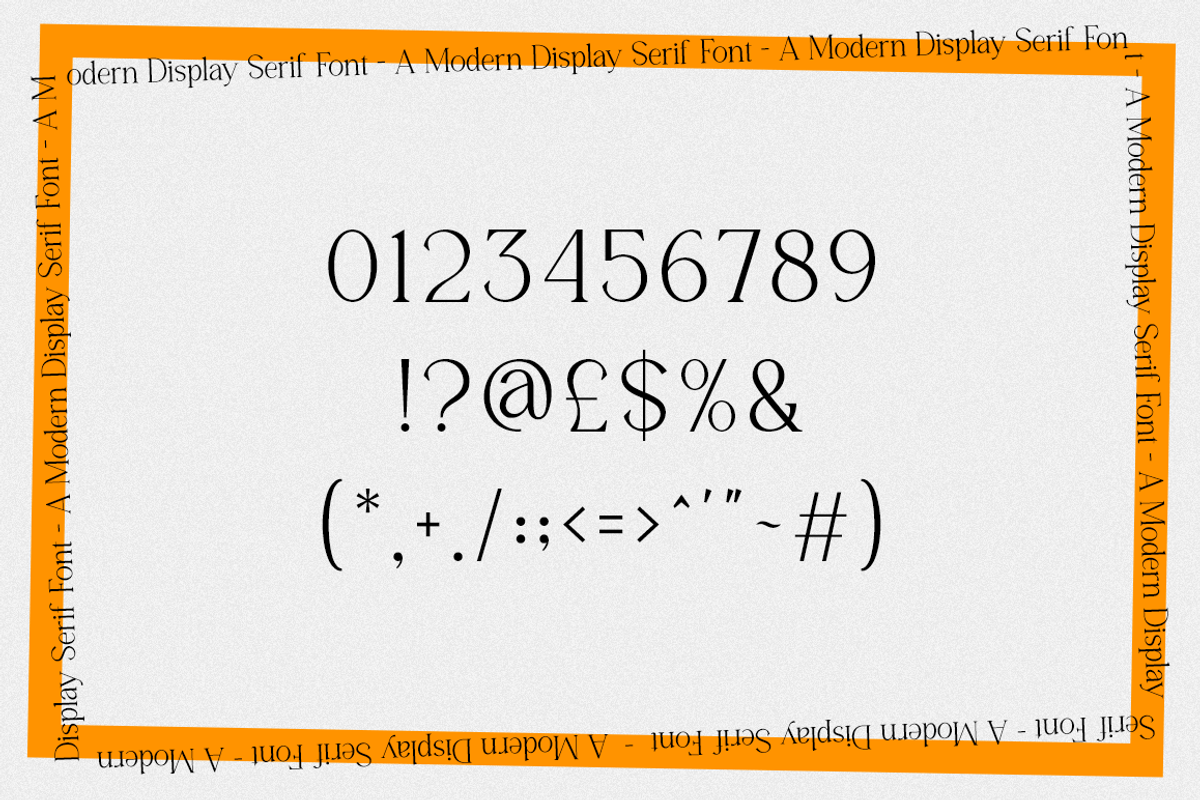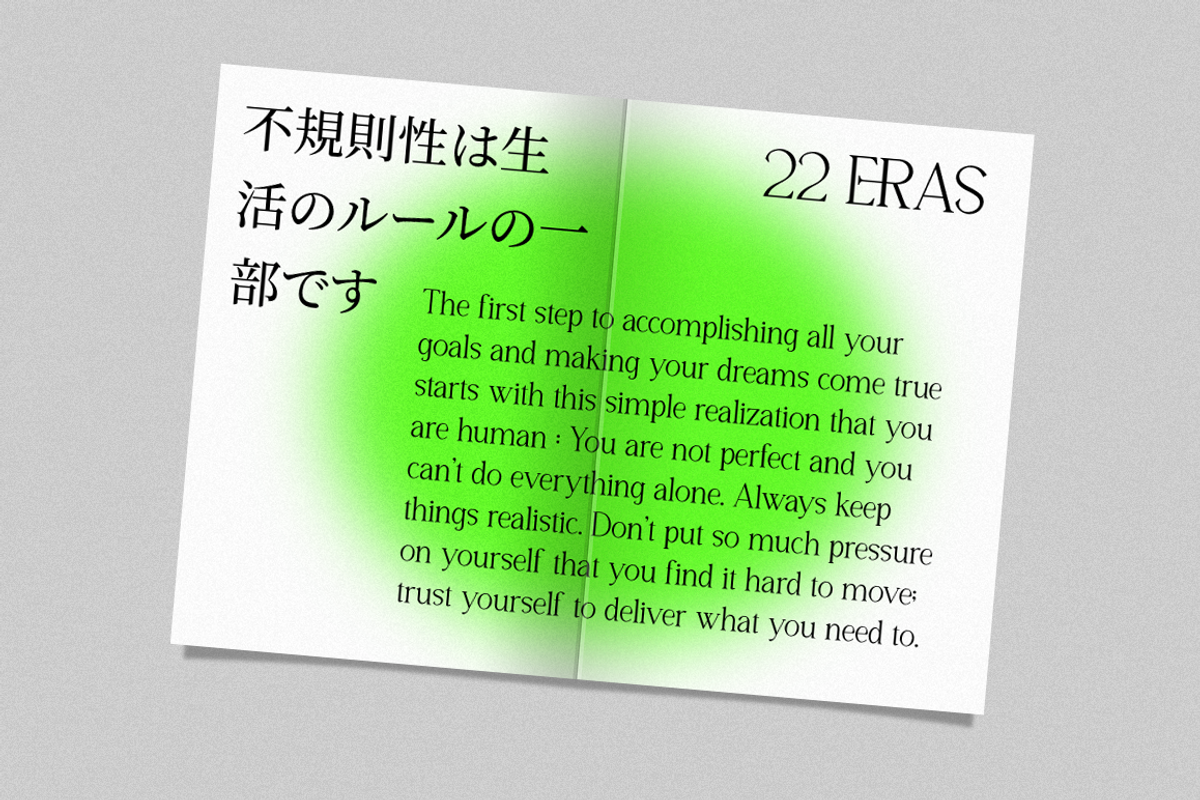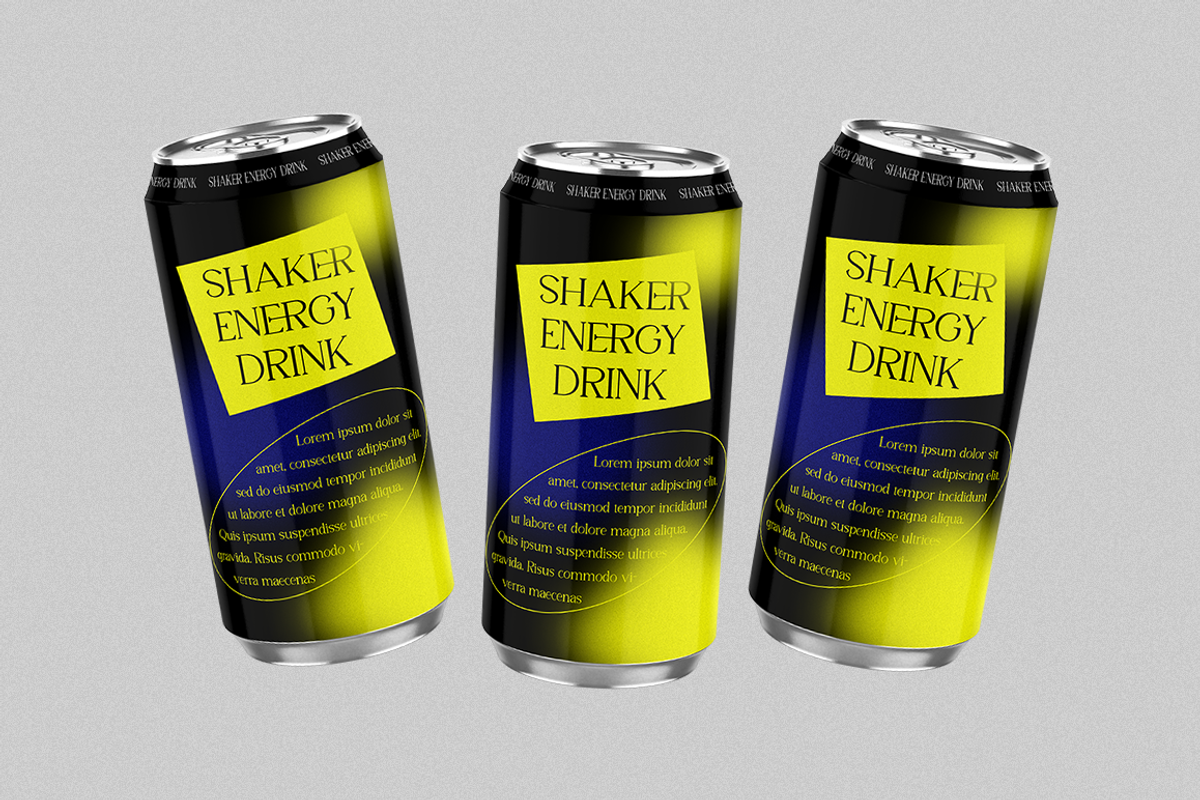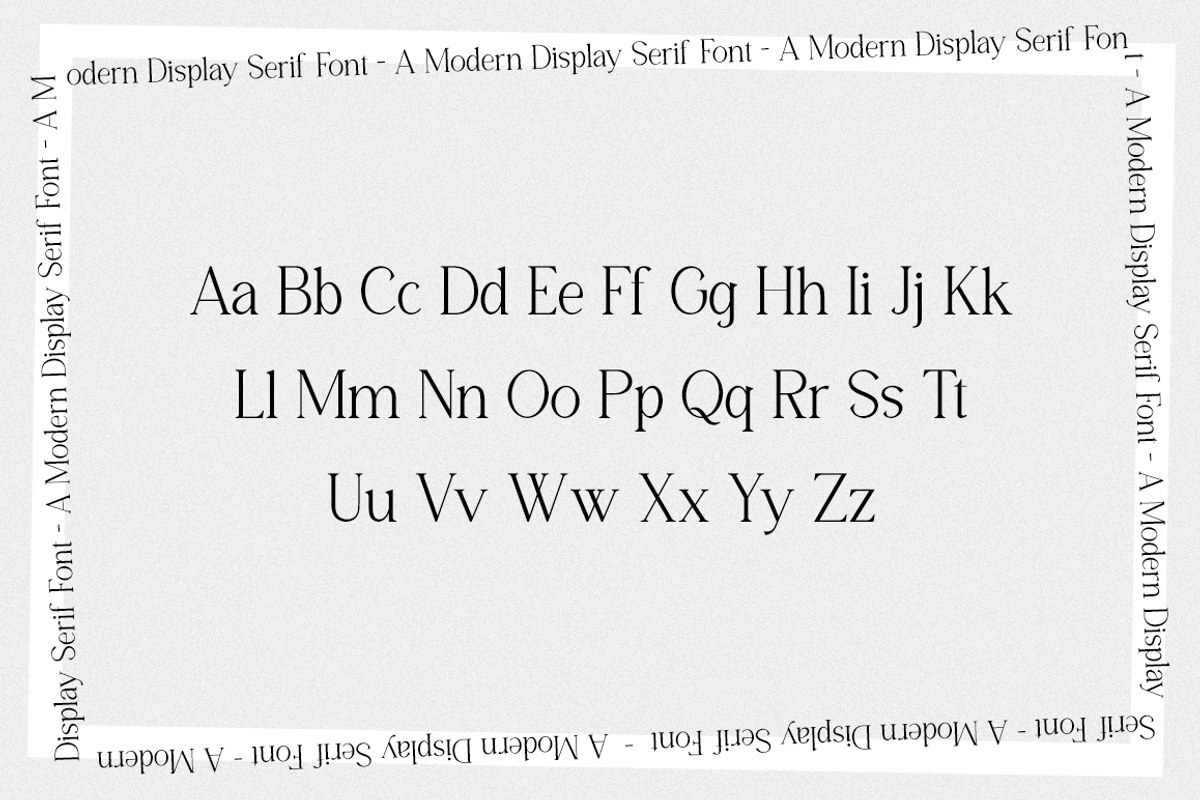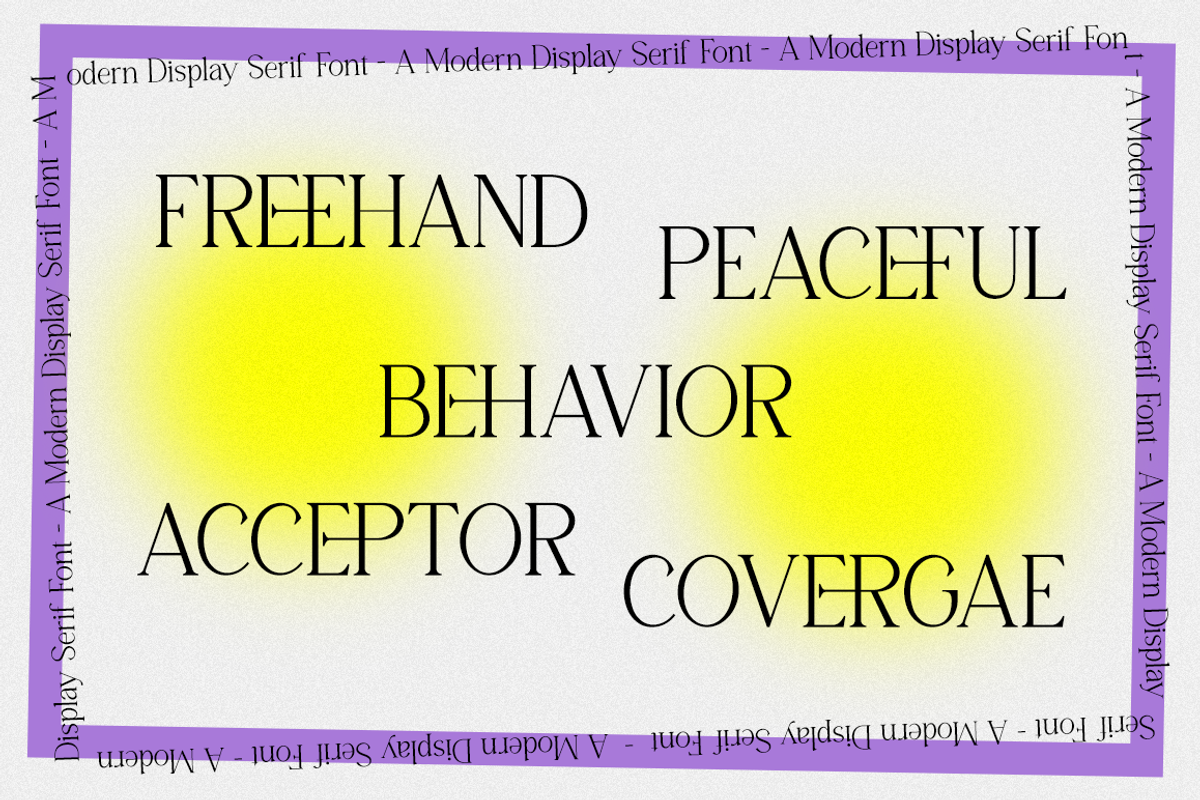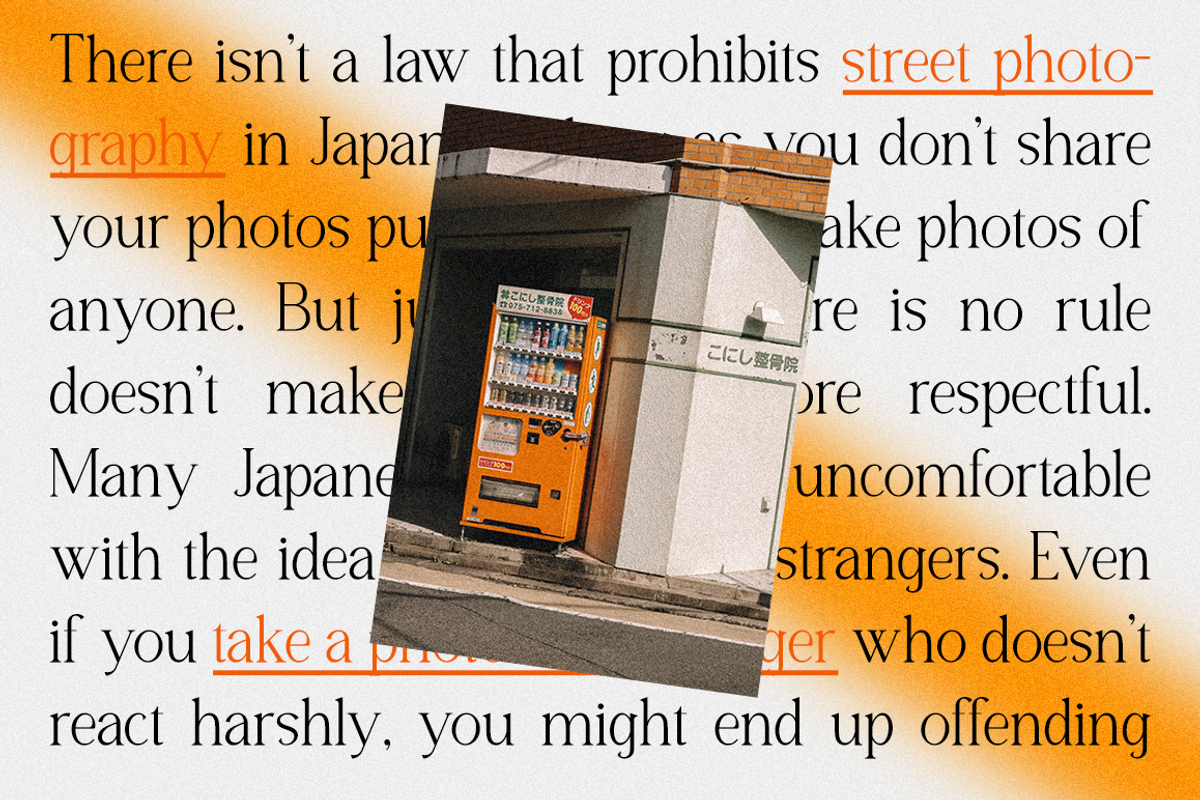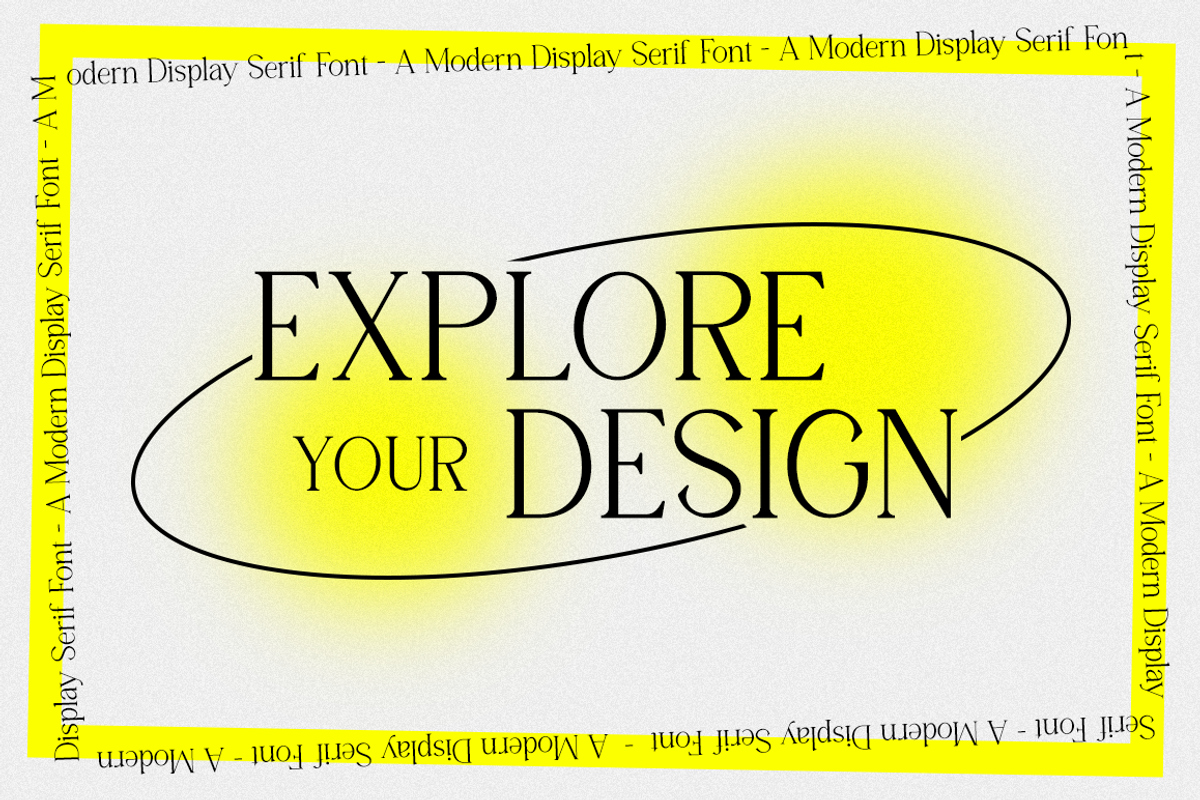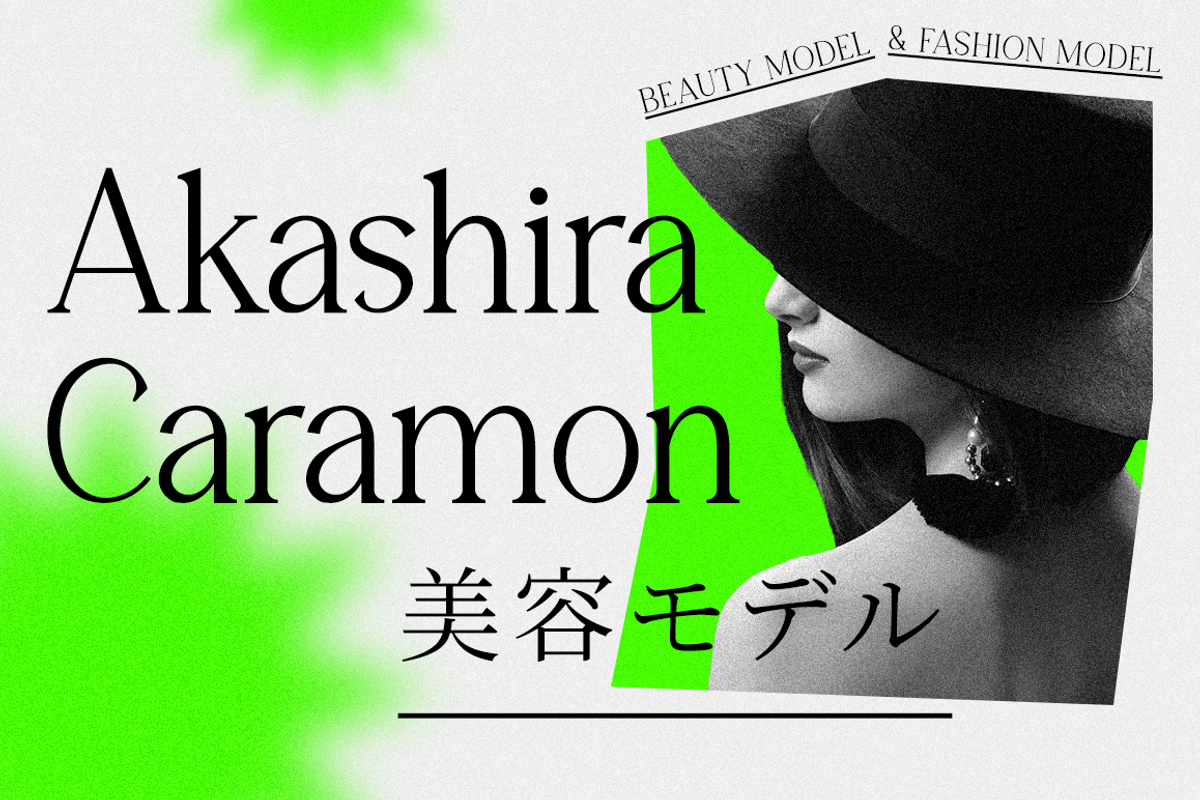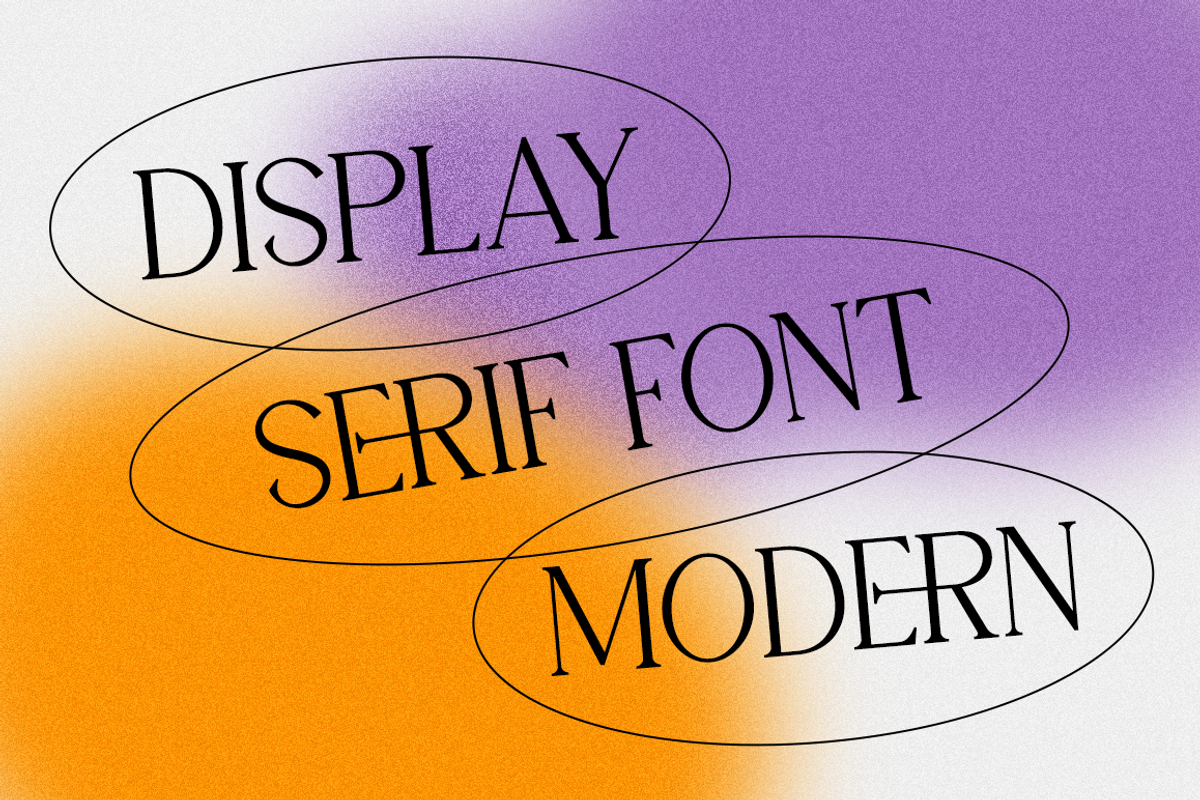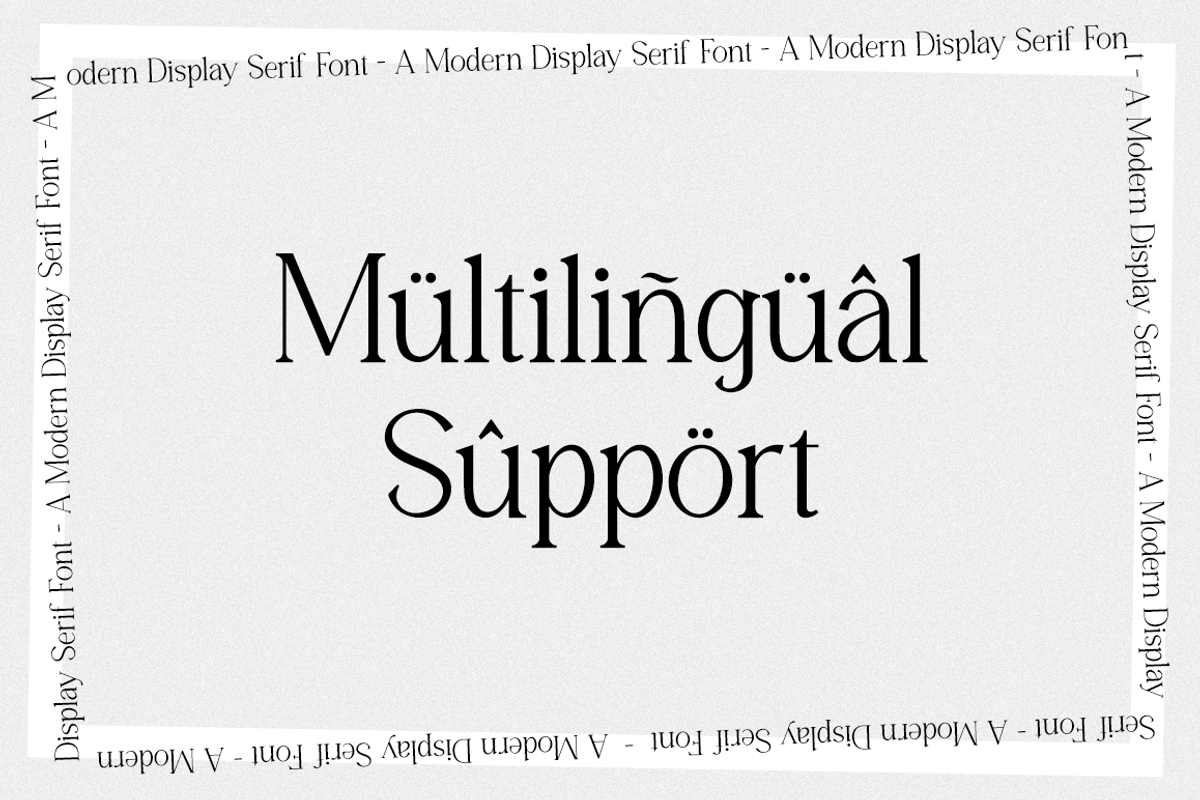
Saverior - Advertisement Font
Saverior is an elegant and thin lettered serif font. It maintains its classy calligraphic influences while feeling contemporary and fresh. Fall in love with it and bring your projects to the highest levels!